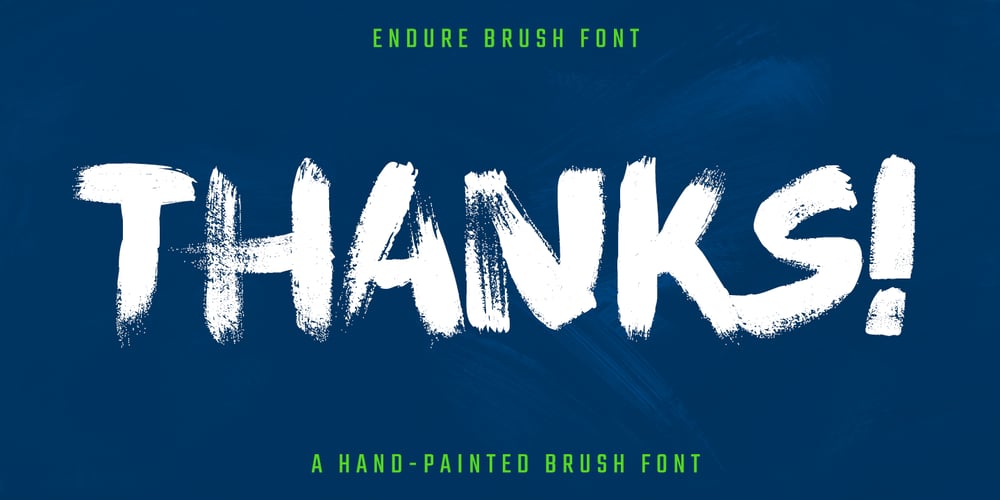
Endure Font Family was designed by Trevor Garner and published by Spinturnix. Endure contains 2 styles and family package options. Endure is a new hand-painted brush font created to add a high detail and realistic feel to any project. Every glyph in Endure was painted by hand on actual paper and scanned in manually – A lengthy process, but worth the fine detail!